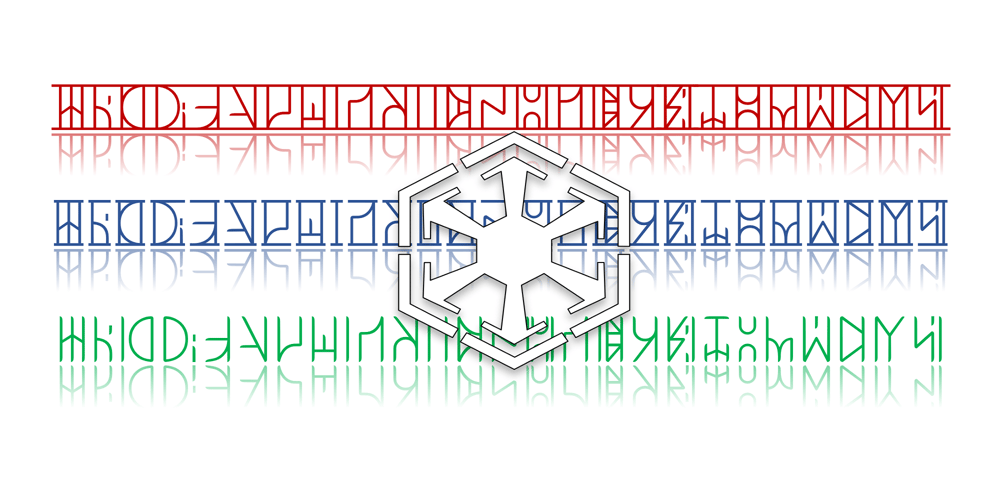
Ongunkan Star Wars UrKittat B Font Family was designed by Osman Nuri ALKAN and published by Runic World Tamgacı. Ongunkan Star Wars UrKittat B contains 1 styles and family package options. Star WarsVersion 3ur-Kittât, commonly known as Sith or the Old Tongue, was the runic language of the Sith. It was spoken by members of the Sith Order and the Sith Eternal cult as a secret language and written in a runic form.